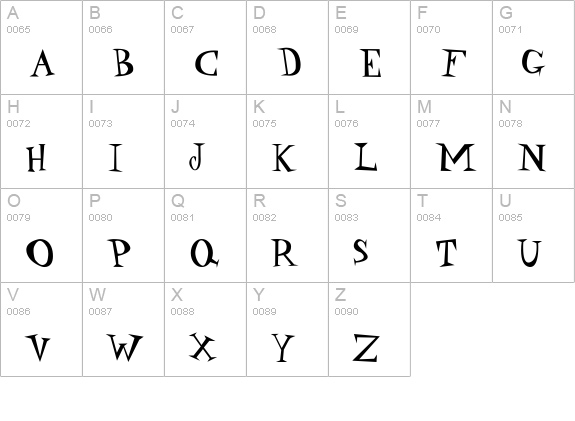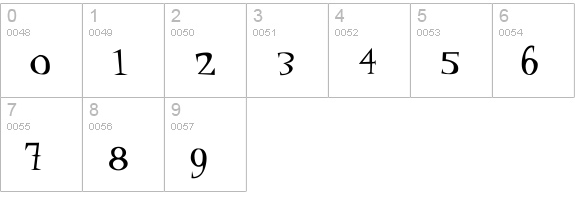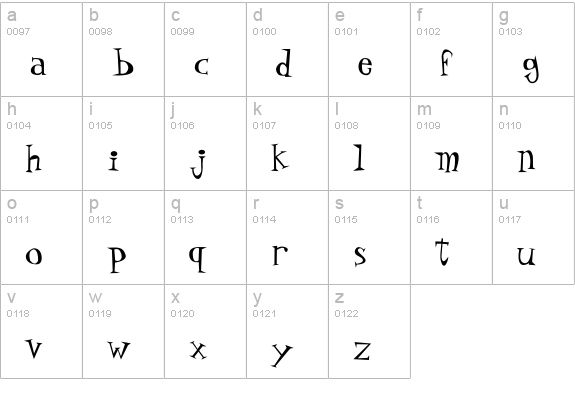
Introducing DaddyO Hip, the epitome of coolness and urban style. This font is the perfect blend of retro nostalgia and contemporary edge, making it a must-have for any design project that aims to make a statement. With its bold and dynamic letterforms, DaddyO Hip captures the essence of the hip-hop culture, graffiti art, and street fashion. Each character is carefully crafted to exude confidence, attitude, and a touch of rebelliousness. But what sets DaddyO Hip apart from the rest is its accessibility. This font is available for free download exclusively at FontsMarket.com. Yes, you read that right – absolutely free! We believe that creativity should never be limited by budget constraints, and that's why we want to make DaddyO Hip available to everyone, regardless of their financial resources. Whether you're designing a flyer for a hip-hop concert, creating a logo for a streetwear brand, or adding some urban flair to your social media posts, DaddyO Hip is here to elevate your designs to new heights. Its versatility allows it to seamlessly blend into a variety of design styles, giving your work that extra punch that will surely turn heads. So don't miss out on this opportunity to own a font that embodies the spirit of the streets. Get your hands on DaddyO Hip today and let your creativity run wild. Remember, it's free and waiting for you at FontsMarket.com – your one-stop destination for all your font needs.